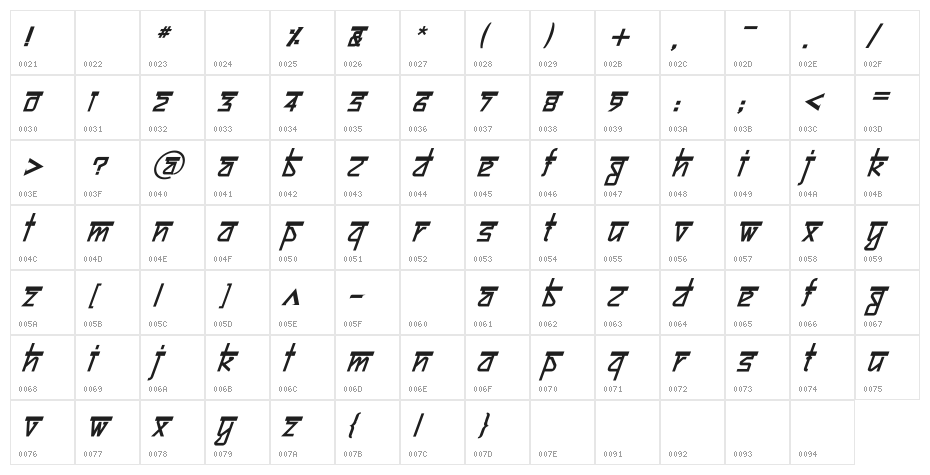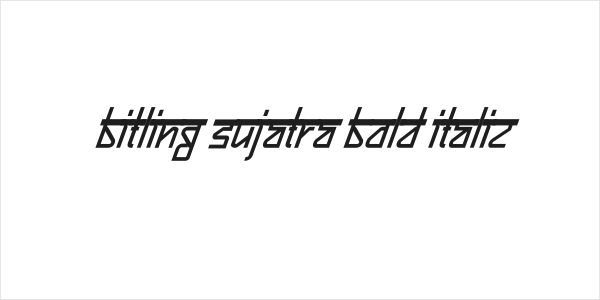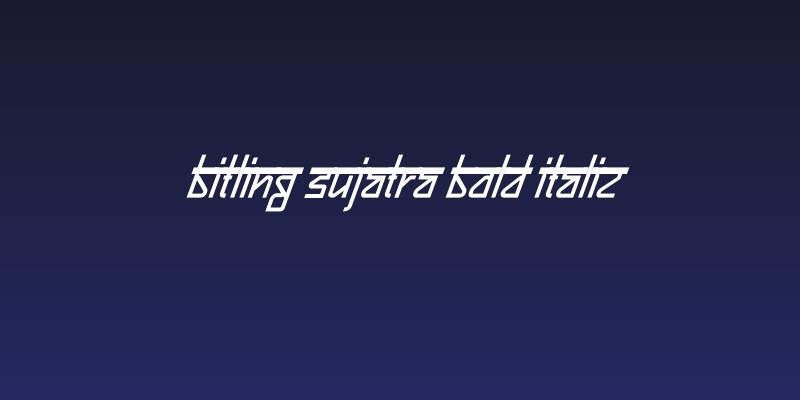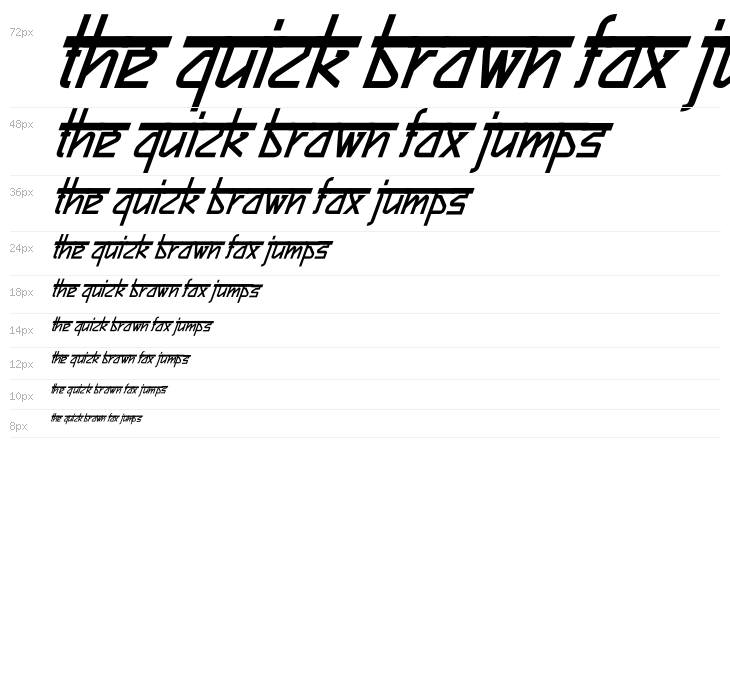
Bitling sujatra Bold Italic Font
Bitling sujatra Bold Italic Description
This font exhibits a bold and italicized style with a distinct slant, giving it a dynamic and energetic appearance. The characters are sharply angled, with a futuristic and sporty aesthetic. The uppercase and lowercase letters maintain a consistent style, with elongated strokes and sharp edges. The numerals and special characters follow the same design principles, ensuring uniformity across all glyphs. The font's boldness and italic nature make it stand out, suitable for attention-grabbing designs. Its unique style is ideal for projects that require a modern and edgy look.
| Proposed Projects | Ideal for sports branding, futuristic designs, tech-related projects, and dynamic advertising. |